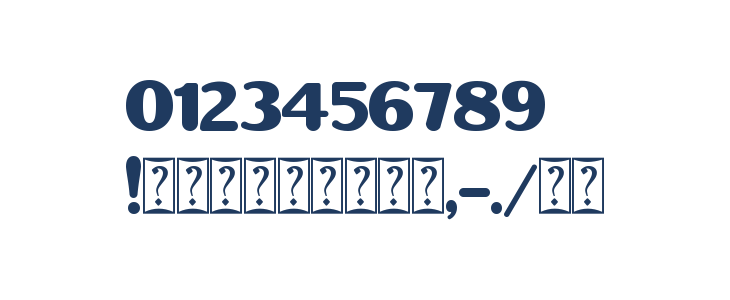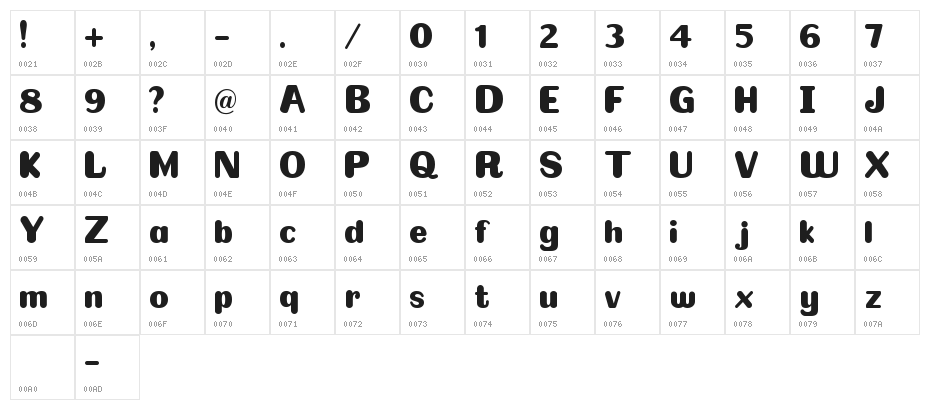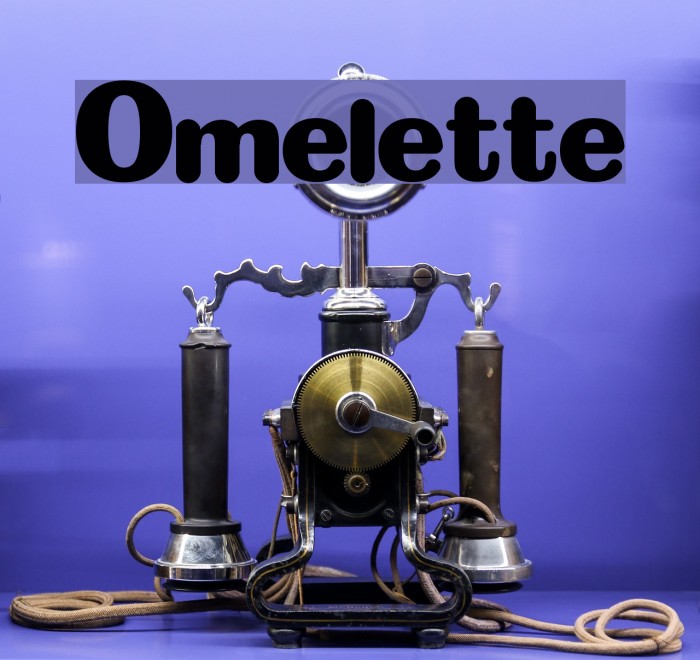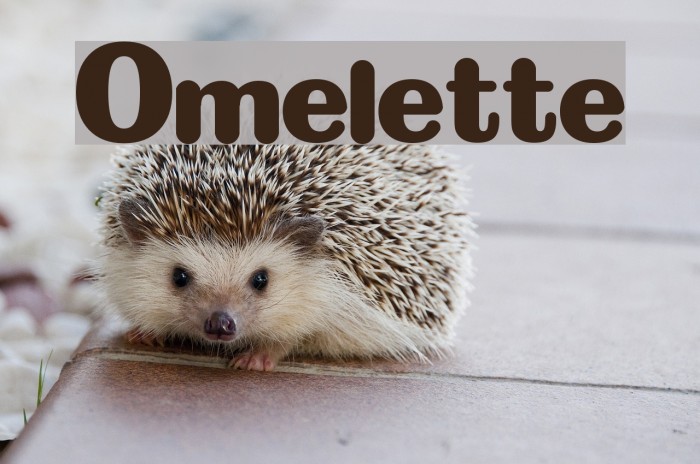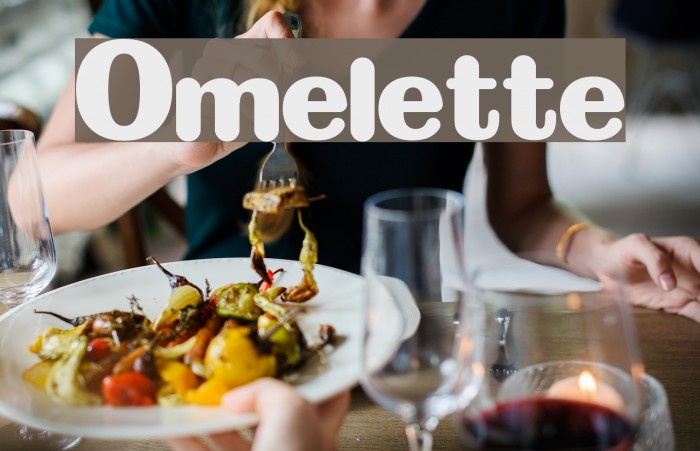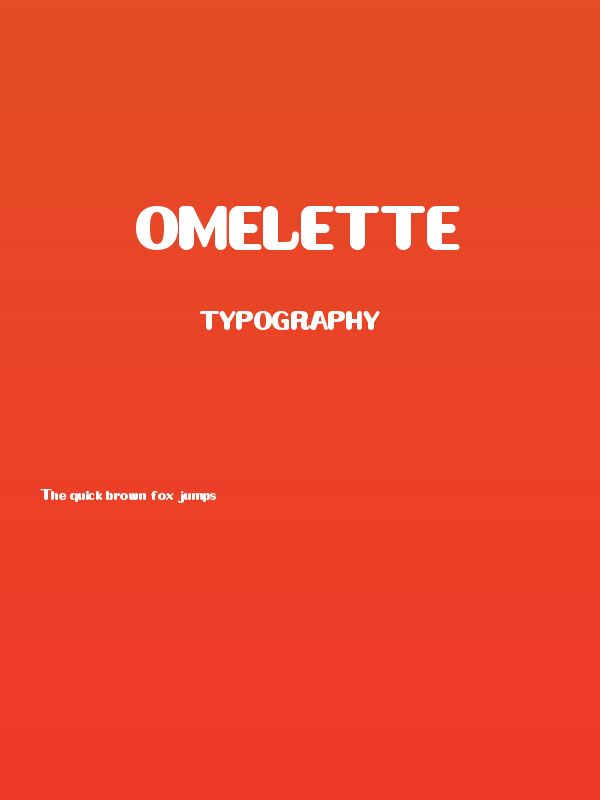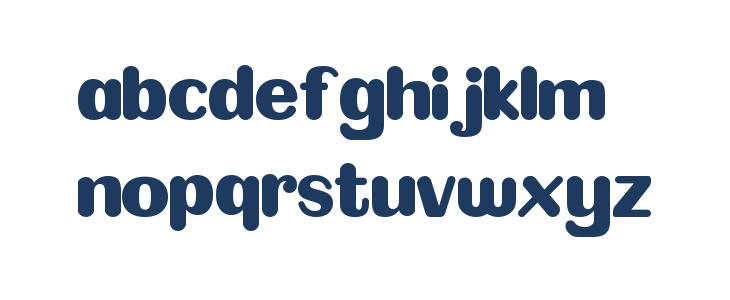
Omelette Font
Omelette Description
This font features a bold and rounded style, characterized by its thick strokes and smooth curves. The letters have a playful and friendly appearance, making them highly legible and visually appealing. The uppercase and lowercase letters maintain a consistent weight, contributing to a cohesive look. The numbers are equally bold, ensuring they stand out clearly. Special characters are included, matching the overall rounded and bold aesthetic. This font's design is modern and approachable, suitable for various creative applications.